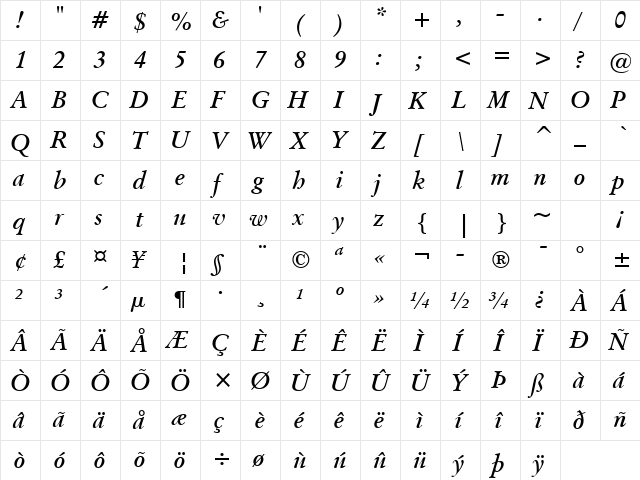
OrigGarmnd BT Bold Italic Font Preview
OrigGarmnd BT Bold Italic
Design Context for OrigGarmnd BT Typeface
OrigGarmnd BT offers clean, dependable letterforms without strong stylistic allegiance, making it a practical choice for designers who need flexibility. The dynamic lean of this cut emphasises speed and emphasis in any layout. The heavy weight commands attention and anchors typographic hierarchies.
Pro Tip: Use OrigGarmnd BT for emphasis, pull quotes, and subheadings where its slanted energy can add rhythm to the layout.